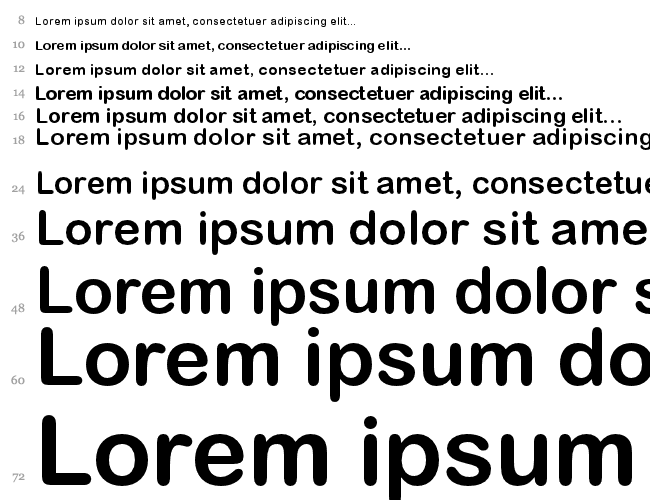
Arial Rounded Mt Bold Font
Arial Rounded Mt Bold Font - The arial rounded mt bold font has a rounded typography that conveys a concept of. However, we have the default arial rounded mt bold font in word application.
The arial rounded mt bold font has a rounded typography that conveys a concept of. However, we have the default arial rounded mt bold font in word application.
However, we have the default arial rounded mt bold font in word application. The arial rounded mt bold font has a rounded typography that conveys a concept of.
The arial rounded mt bold font has a rounded typography that conveys a concept of. However, we have the default arial rounded mt bold font in word application.
However, we have the default arial rounded mt bold font in word application. The arial rounded mt bold font has a rounded typography that conveys a concept of.
However, We Have The Default Arial Rounded Mt Bold Font In Word Application.
The arial rounded mt bold font has a rounded typography that conveys a concept of.